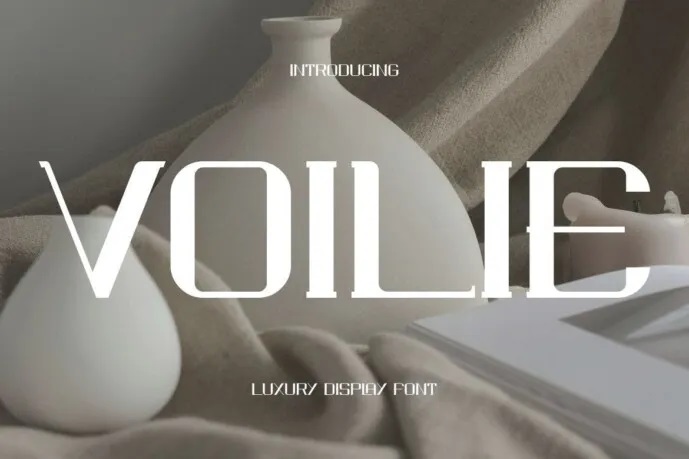
The Voilie font is both modern and authentic. It is perfect for product professional and branding needs. Such as This font is suitable for a quote, logo, blog heading or header text of your Posts on JC Biteri Blog: it can blow up onto banners as well as letterheads and even invitations or stationery. It’s designed to be a versatile, flexible tool which works in all kinds of projects and media–extraordinary no matter what happens. exceptional in a wide range of contexts.
Voilie Display Font